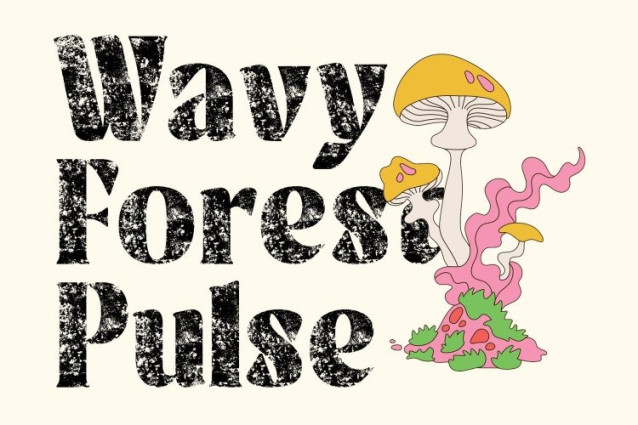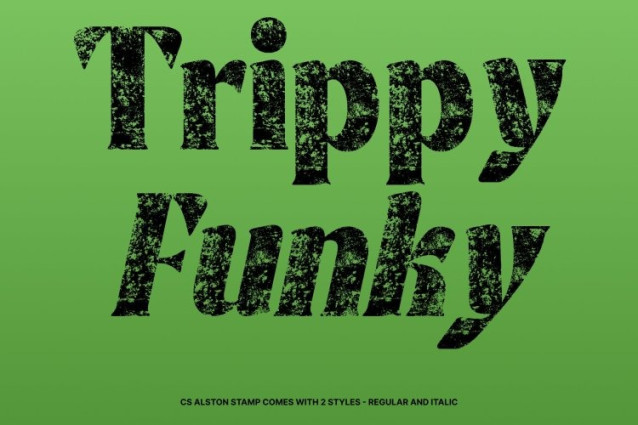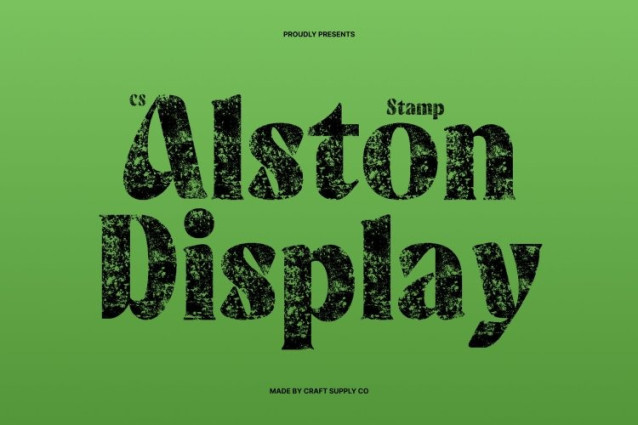
CS Alston Stamp Font
CS Alston Stamp Font This is a bold serif font that radiates elegance and classic charm through its strong yet smooth letterforms. Its confident structure delivers a refined and luxurious presence, while the bold weight ensures every word feels impactful and authoritative. This font is designed to stand out with sophistication, making it ideal for designs that demand both beauty and strength.
Sophisticated Form with Stamped Texture
The well-defined serifs and balanced proportions give this font a polished, high-end appearance. Enhanced with a stamped texture, the font gains artistic depth and subtle imperfections that evoke a vintage, handcrafted feel. This texture adds character and warmth, transforming the clean elegance into something more expressive, timeless, and visually rich.
Classic Appeal for Formal and Luxury Design
This font is perfectly suited for formal invitations, luxury branding, and editorial headlines. Whether used for weddings, corporate events, upscale packaging, or magazine covers, the font delivers a graceful yet bold tone. Its stamped effect introduces an old-world charm that enhances formality while maintaining excellent readability.
Versatile Serif with Old-Style Character
Blending traditional serif elegance with bold modern structure and vintage texture, this font is a versatile choice for a wide range of premium design applications. From logos and branding to editorial layouts and high-profile presentations, this font brings timeless confidence, artistic texture, and classic sophistication to every project.